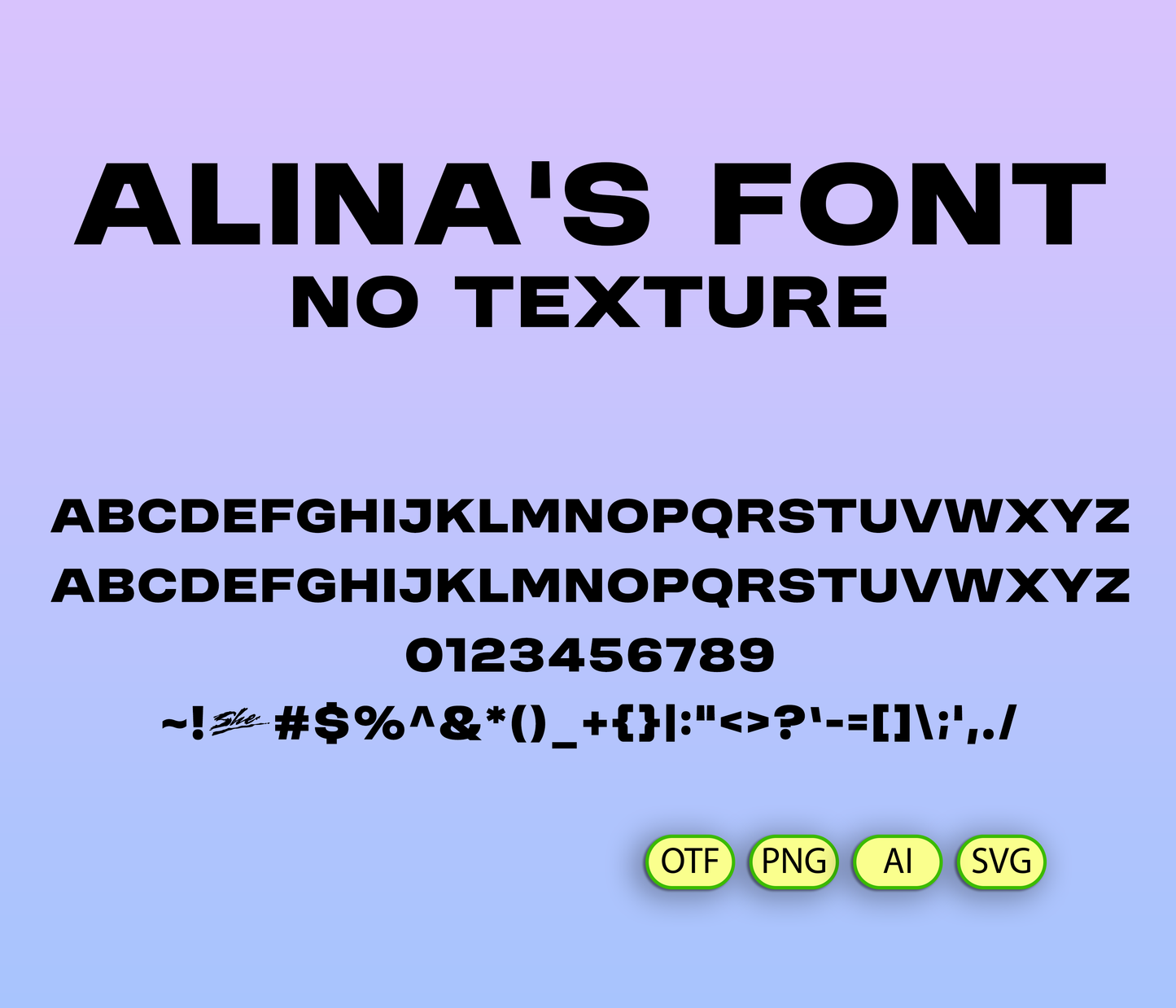
Superheroine Font
Unleash the Power and Elegance with the Superheroine Font
Capture the unique blend of strength and sophistication with our Superheroine-inspired font. Perfect for fans, event planners, and designers looking to bring the powerful and dynamic essence of a superheroine to their projects, this font combines the boldness of a superhero with elegance. Whether creating event invitations, themed merchandise, or digital content, our Superheroine font ensures your projects resonate with the fierce yet stylish presence of this iconic character.
Our Superheroine-inspired font features bold, strong lines with a touch of elegance, reflecting the character's dual nature as both a powerful superhero and a savvy professional. This versatile font is ideal for various applications:
Our Superheroine font not only pays tribute to the iconic character but also empowers you to infuse your designs with her unique blend of power and elegance. Whether crafting promotional materials, designing unique merchandise, or adding a bold touch to personal projects, this font allows you to communicate with the dynamic and sophisticated spirit that defines a superheroine. Ready to elevate your creative projects with a touch of superhero flair? This font is your key to unlocking a world of powerful and stylish design.